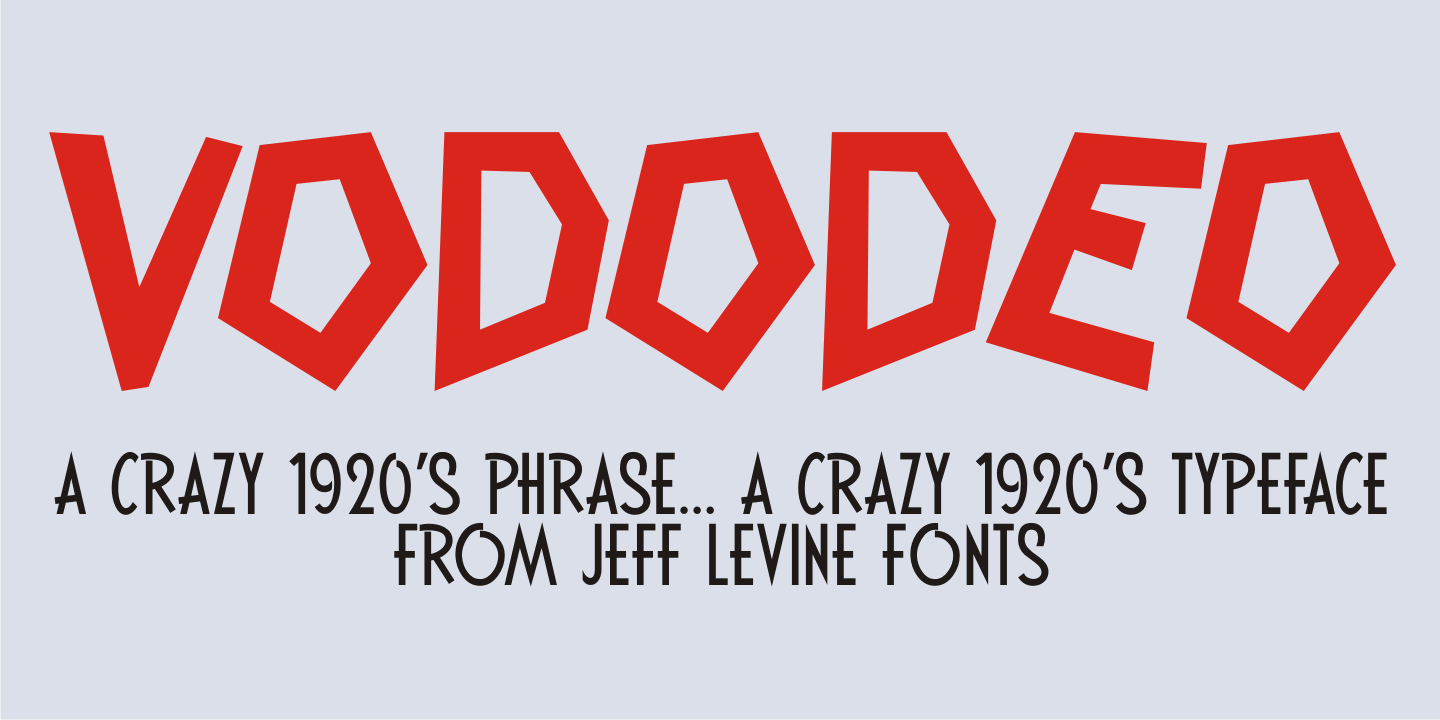
Vododeo
Vododeo JNL is directly named for the free-form sheet music title lettering from Jack Yellen and Milton Ager's "Vo-Do-De-O". The term itself was a catchphrase made popular during the era known as the "Roaring 20s".
Yellen and Ager were responsible for such hits as "Ain't She Sweet" (1927) and "Happy Days Are Here Again" (1930) along with countless others. During his career, Jack Yellen provided lyrics to over 200 songs.
As a side note, Yellen was married to a distant cousin of type designer Jeff Levine's late mother.